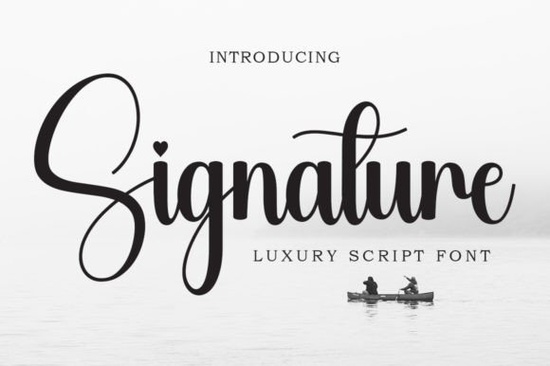
If you’re looking for a script font that feels personal and refined, Signature might be exactly what you need. This cursive typeface comes with a handwritten flourish that makes it look like it was written with a real pen. The letters flow together softly, without feeling stiff or too formal. It’s the kind of font that works for wedding invites, logo designs, or even social media quotes where you want a touch of elegance.
What kinds of projects work best with a cursive font like Signature?
Because Signature has a tender, fluid shape, it brings a romantic feel to anything you create. That makes it a natural pick for wedding stationery, save-the-dates, and thank-you cards. The font also adds a sense of luxury to branding materials for fashion, beauty, or boutique businesses. If you sell print-on-demand products, try using it on mugs, t-shirts, or posters that need a feminine, approachable vibe. The relaxed sophistication in the letterforms keeps projects from looking too serious or corporate.
How to pair Signature with other fonts
Pairing a script font with a simple sans-serif often gives the best balance. For headings or short phrases, let Signature shine on its own. For longer body text, use a clean, readable font like a classic sans-serif or a light serif. That way, the script draws attention without overwhelming the layout. If you’re designing a logo, try placing Signature next to a thin, all-caps font to create contrast.
What similar script fonts can you use alongside Signature?
If you want to build a font collection that works well together, here are a few script options that complement Signature’s style:
- Mama Papa Duo – A playful handwritten pair that works well for kid-friendly projects or casual branding.
- Snapdragons – A bold, modern script that adds a bit of edge while keeping a handmade feel.
- School Notes – A relaxed, chalkboard-style font that mixes well with Signature when you need a more casual accent.
- Brigetha – A vintage-inspired script with swashes that bring an old-world charm to formal projects.
- Simple Calligraphy – A clean, modern calligraphy that keeps the elegance but reads clearly on screen.
Each of these fonts has its own personality, so you can mix and match depending on the mood of your project. For example, use Signature for the main headline, Snapdragons for a subheading, and Simple Calligraphy for accent words.
How do you get the most out of a cursive font in your designs?
Script fonts can be tricky if you’re not used to them. Here are a few practical tips:
- Don’t use all caps. Cursive fonts are meant to flow naturally. Writing everything in uppercase defeats the purpose and looks messy.
- Adjust letter spacing. Some scripts have tight kerning. Adding a little extra space between letters can improve readability, especially on screens.
- Use it sparingly. A little cursive goes a long way. Reserve Signature for headlines, names, or short quotes. Body text in script is hard to read.
- Test on different backgrounds. Light textures or solid pastel colors work well. Busy backgrounds can make the thin strokes disappear.
Why choose Signature for branding and marketing materials?
Brands that want to feel approachable and premium often reach for script fonts. Signature sits in a sweet spot between playful and elegant. It’s not overly ornate, so it doesn’t look dated. The handwritten style adds a human touch that flat, geometric fonts lack. For fashion lookbooks, it can hint at luxury without shouting. For greeting cards, it feels intimate and sincere. Small businesses selling handmade goods will find that Signature reinforces the “handcrafted” message they want to convey.
Where can you find a reliable source for quality script fonts?
Creative Fabrica is a solid place to start. They have a huge library of fonts, including many cursive styles like Signature. You can search by category, style, or popularity. The site also offers bundles and a subscription that gives you access to thousands of fonts and graphics. If you’re just starting out or need variety without spending a lot, that’s a good option.
Quick tip: Before you download any script font, look at the full character set. Some cursive fonts only include basic letters and numbers. Others come with alternative characters, swashes, and ligatures that give you more creative control. Signature offers those extra touches, which is why it works well for custom logos and high-end projects.
Your next steps
If you’re ready to try Signature in your own work, here’s a simple checklist:
- Test it on a real project – Pull up a branding mockup or a greeting card design and see how it looks in context.
- Experiment with pairings – Try it with Mama Papa Duo or Snapdragons to see which combination fits your style.
- Adjust your layout – Play with size, spacing, and background colors until the script feels balanced.
Signature is a versatile cursive font that can elevate everything from logos to wedding invitations. Give it a try the next time you need a font that feels personal and polished.